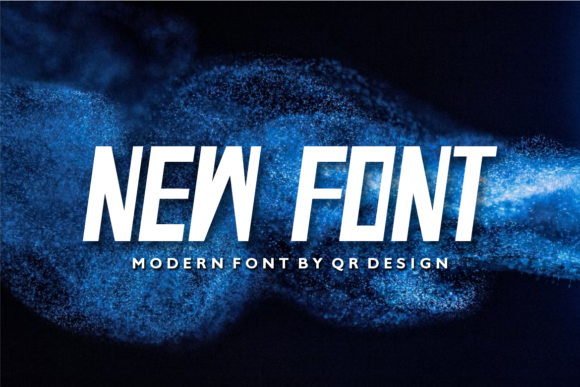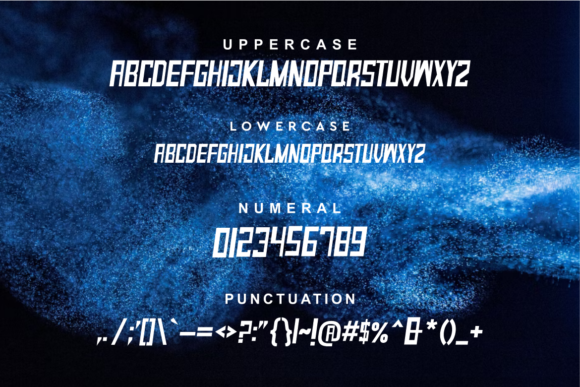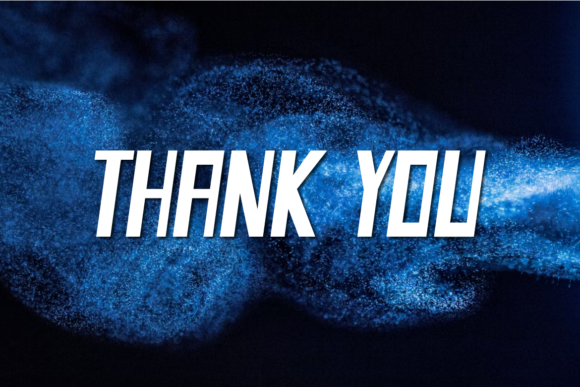
Discover the Ultimate Gaming Font: Desango
In the world of design, fonts play a crucial role in bringing a project to life. With the right typography, you can convey your message, evoke emotions, and create a lasting impression. For designers and crafters looking for a modern and unique sans serif font, Desango is an excellent choice. This geometric font is specifically designed to take your projects out of the ordinary, making it perfect for gaming and other creative endeavors.
What is Desango Font?
Desango is a modern sans serif font characterized by its geometric characters. Its sleek and clean design makes it an excellent choice for a wide range of projects, from digital media to print materials. The font’s unique features and style set it apart from other fonts, making it an ideal choice for designers looking for something fresh and exciting.
Key Features of Desango Font
- Geometric Characters: Desango’s geometric characters give it a modern and sleek look, making it perfect for designs that require a contemporary feel.
- Unique Style: The font’s unique style sets it apart from other sans serif fonts, ensuring your projects stand out from the crowd.
- Modern Design: Desango’s modern design makes it an excellent choice for gaming and other digital projects that require a fresh and exciting look.
- Versatility: The font’s versatility makes it suitable for a wide range of projects, from logos and branding to posters and digital media.
Why Choose Desango Font?
Desango is more than just a font; it’s a design solution that can elevate your projects to new heights. Here are some reasons why you should choose Desango for your next project:
- Perfect for Gaming: Desango’s modern and sleek design makes it an excellent choice for gaming projects, such as logos, titles, and in-game text.
- Easy to Read: The font’s clean and geometric design ensures that your text is easy to read, even at small sizes.
Desango font is a unique and modern sans serif font that can elevate your projects to new heights. Its geometric characters, unique style, and modern design make it perfect for gaming and other creative endeavors. With its versatility, ease of use, and customization options, Desango is an excellent choice for designers and crafters looking for a fresh and exciting font. So why wait? Add Desango to your projects with confidence and experience the results for yourself!